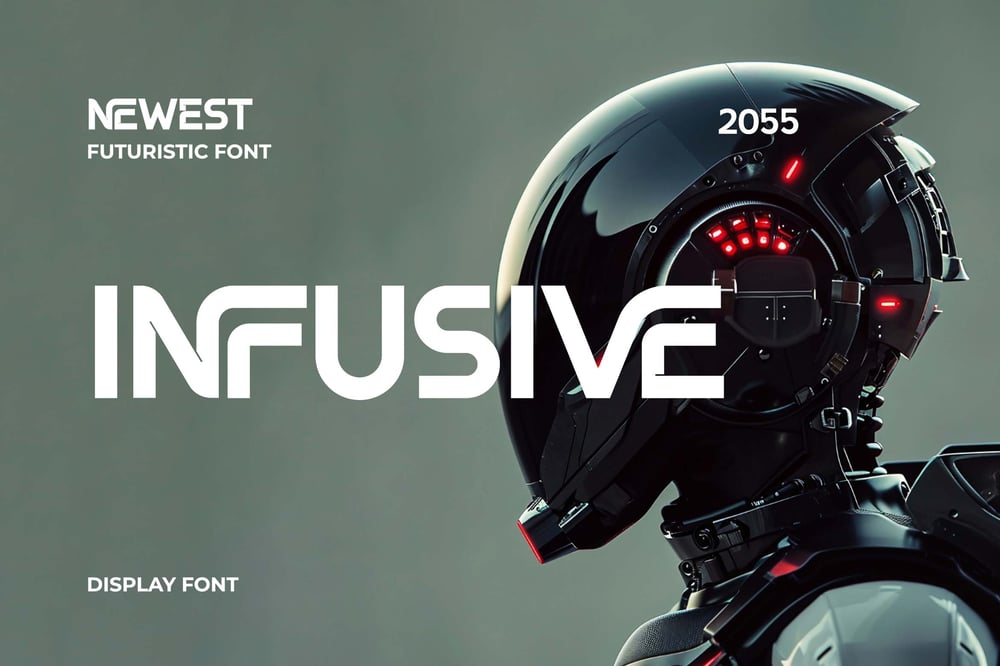
Infusive Font Family was designed by Hero and published by UICreative. Infusive contains 1 styles and family package options. Introducing our new product the name is Infusive Futuristic Display Font. Infusive Futuristic Display Font that feels beautiful classy, elegant, and modern. This font is perfectly suited for a wide variety of projects, such as signature, stationery, logo, wedding, typography quotes, magazine or book covers, website headers, clothing, branding, packaging design, and more. Also, fashion-related branding or editorial design displays both masculine and feminine qualities.